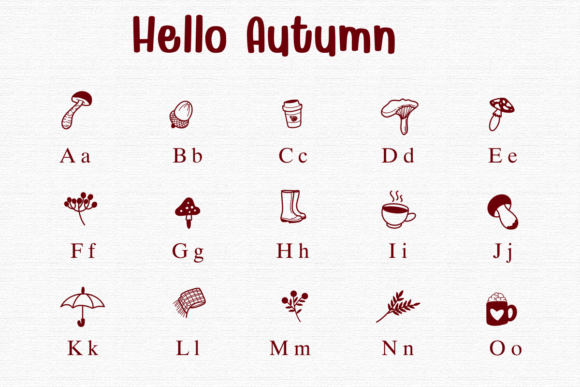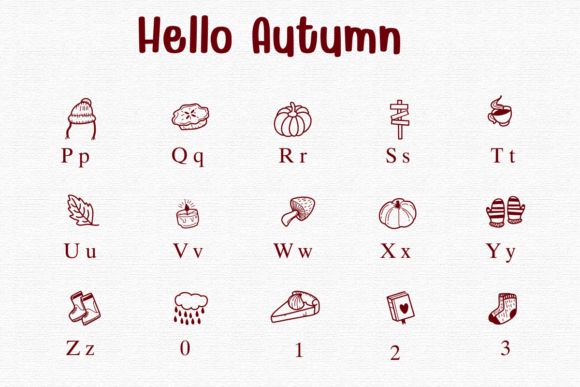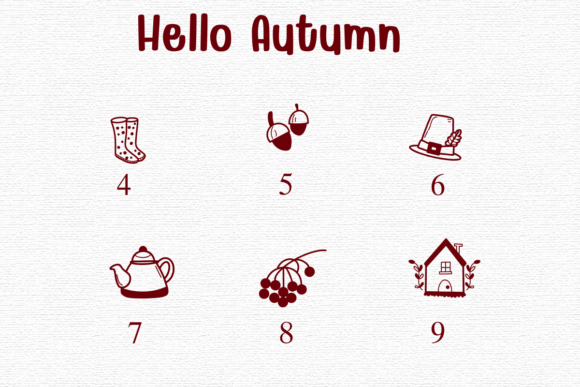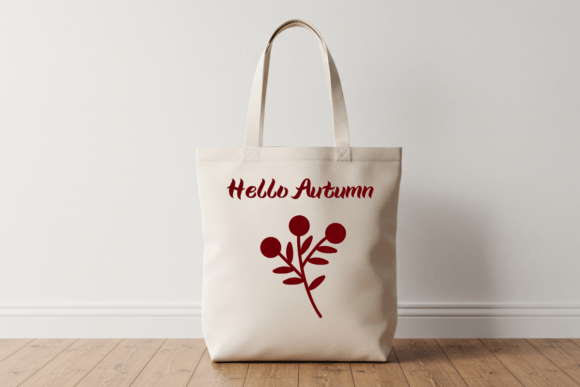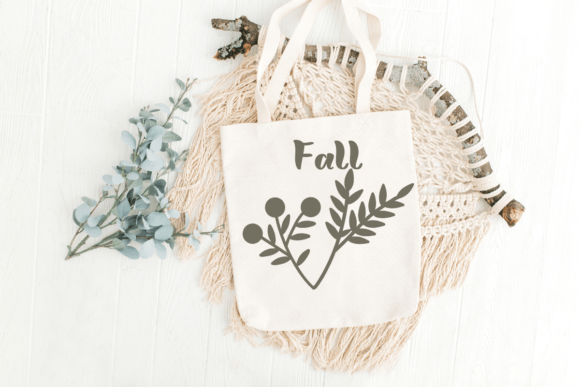
Welcome the Cozy Season with Hello Autumn Font
As the leaves change colors and the air grows crisper, designers and crafters are on the lookout for the perfect typography to capture the essence of the autumn season. Look no further than the charming Hello Autumn Font, a fun and cozy dingbats font that’s perfect for a wide range of creative projects.
What is Hello Autumn Font?
Hello Autumn Font is a delightful dingbats font that’s specifically designed to evoke the warmth and coziness of the autumn season. With its playful and inviting characters, this font is sure to add a touch of seasonal charm to any design project. From websites and logos to cards, invitations, posters, and more, Hello Autumn Font is the perfect choice for anyone looking to create a autumnal-inspired design.
Key Features of Hello Autumn Font
- Fun and Cozy Design: Hello Autumn Font features a playful and inviting design that’s perfect for capturing the spirit of autumn.
- Dingbats Font: This font is a dingbats font, which means it’s made up of decorative characters, symbols, and glyphs that can be used to add visual interest to your designs.
- Versatile: Hello Autumn Font can be used for a wide range of creative projects, including websites, logos, cards, invitations, posters, and more.
Uses for Hello Autumn Font
Hello Autumn Font is a versatile font that can be used in a variety of creative projects. Here are some ideas to get you started:
- Websites: Add a touch of autumnal charm to your website with Hello Autumn Font. Use it for headings, titles, and other design elements to create a cozy and inviting atmosphere.
- Logos: Create a seasonal logo for your business or brand with Hello Autumn Font. This font is perfect for companies that offer seasonal products or services.
- Cards and Invitations: Use Hello Autumn Font to create beautiful and festive cards and invitations for autumnal occasions, such as Thanksgiving, Halloween, and fall parties.
- Posters and Flyers: Create eye-catching posters and flyers with Hello Autumn Font. This font is perfect for promoting seasonal events, sales, and promotions.
- Crafting Projects: Hello Autumn Font is also perfect for crafters who love to make handmade cards, scrapbook pages, and other paper crafts.
Tips for Using Hello Autumn Font
Here are some tips for getting the most out of Hello Autumn Font:
- Experiment with Colors: Autumn is all about warm and rich colors, so experiment with different color palettes to find the perfect combination for your design.
- Mix and Match: Don’t be afraid to mix and match Hello Autumn Font with other fonts to create a unique and visually interesting design.
- Use it Sparingly: While Hello Autumn Font is a beautiful font, it’s best used sparingly. Use it for headings, titles, and other design elements to create visual interest.
Hello Autumn Font is a fun and cozy dingbats font that’s perfect for designers and crafters who want to add a touch of autumnal charm to their creative projects. With its playful and inviting characters, this font is sure to capture the essence of the season. Whether you’re creating a website, logo, card, invitation, poster, or crafting project, Hello Autumn Font is the perfect choice. So why wait? Download Hello Autumn Font today and start creating your own autumnal-inspired designs!